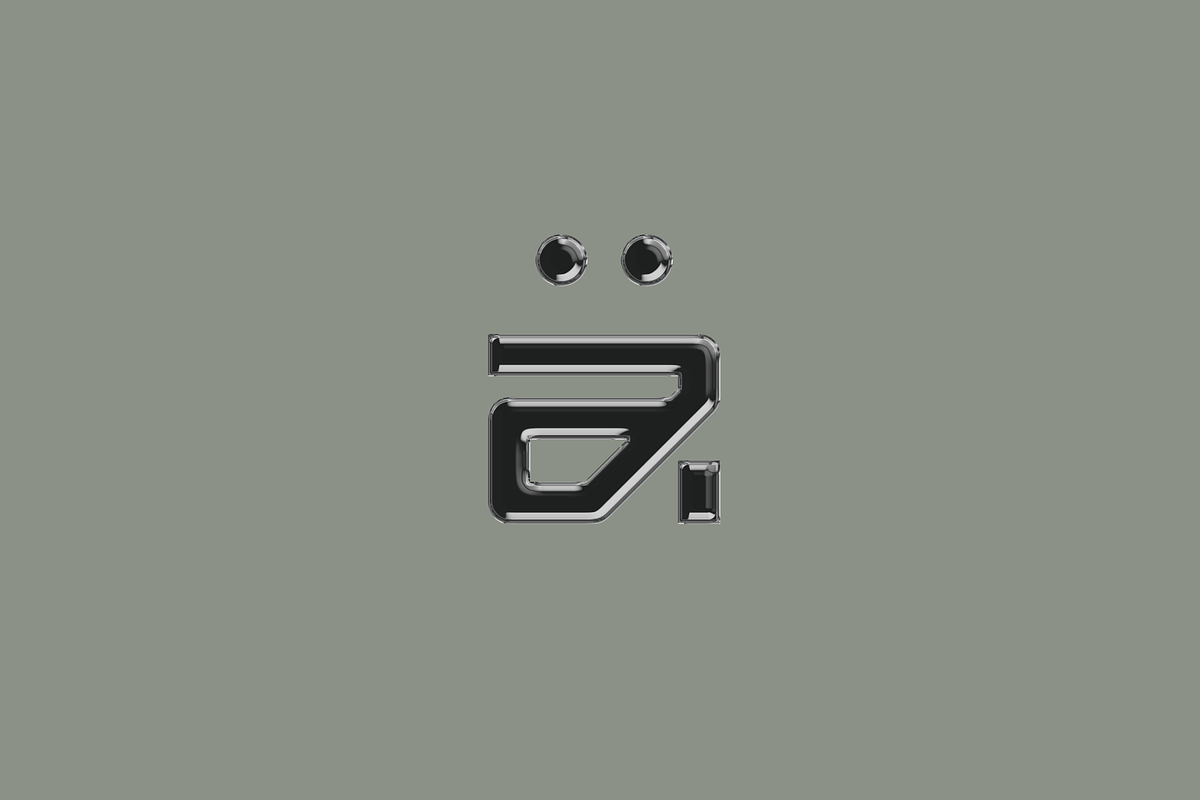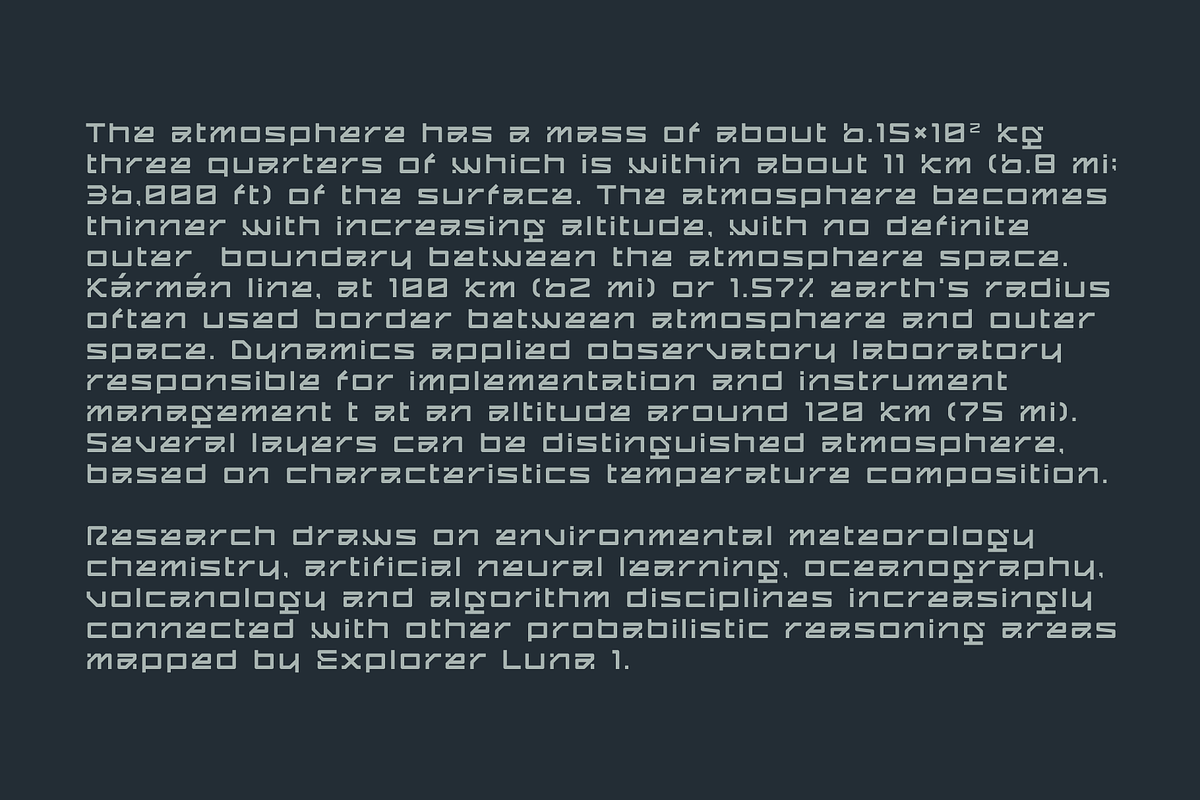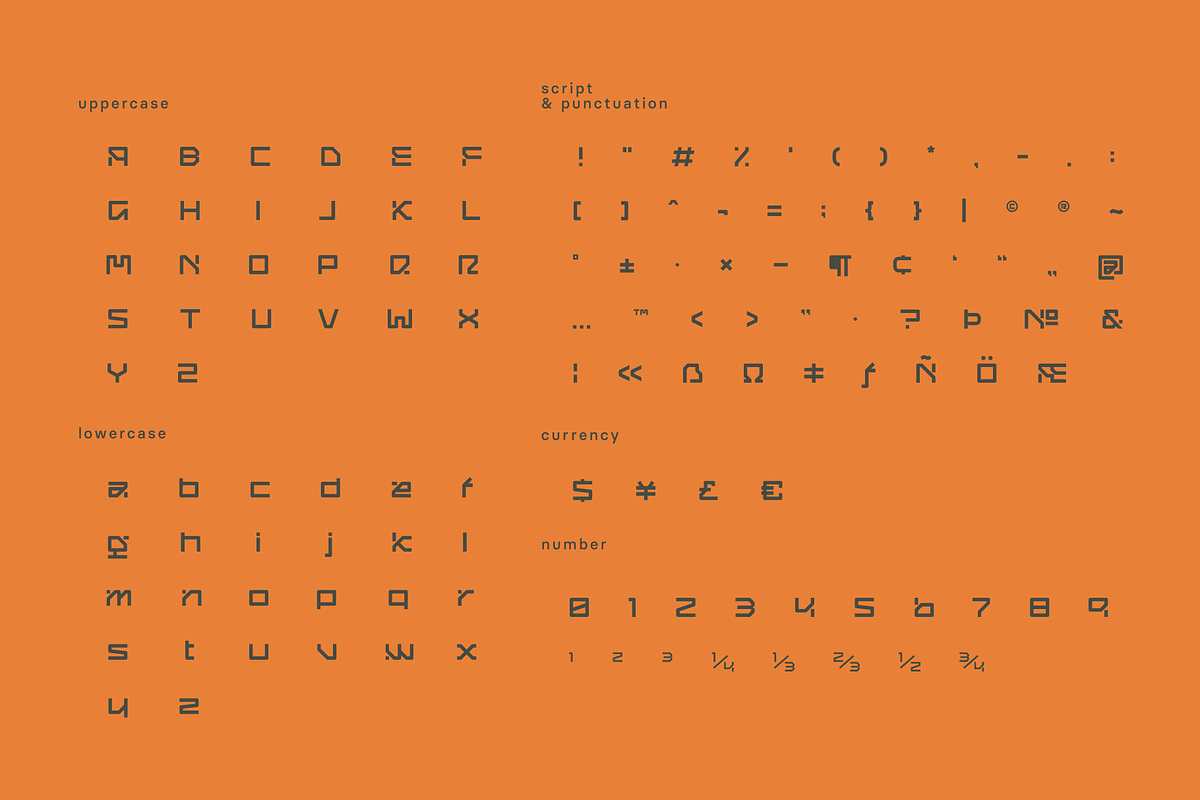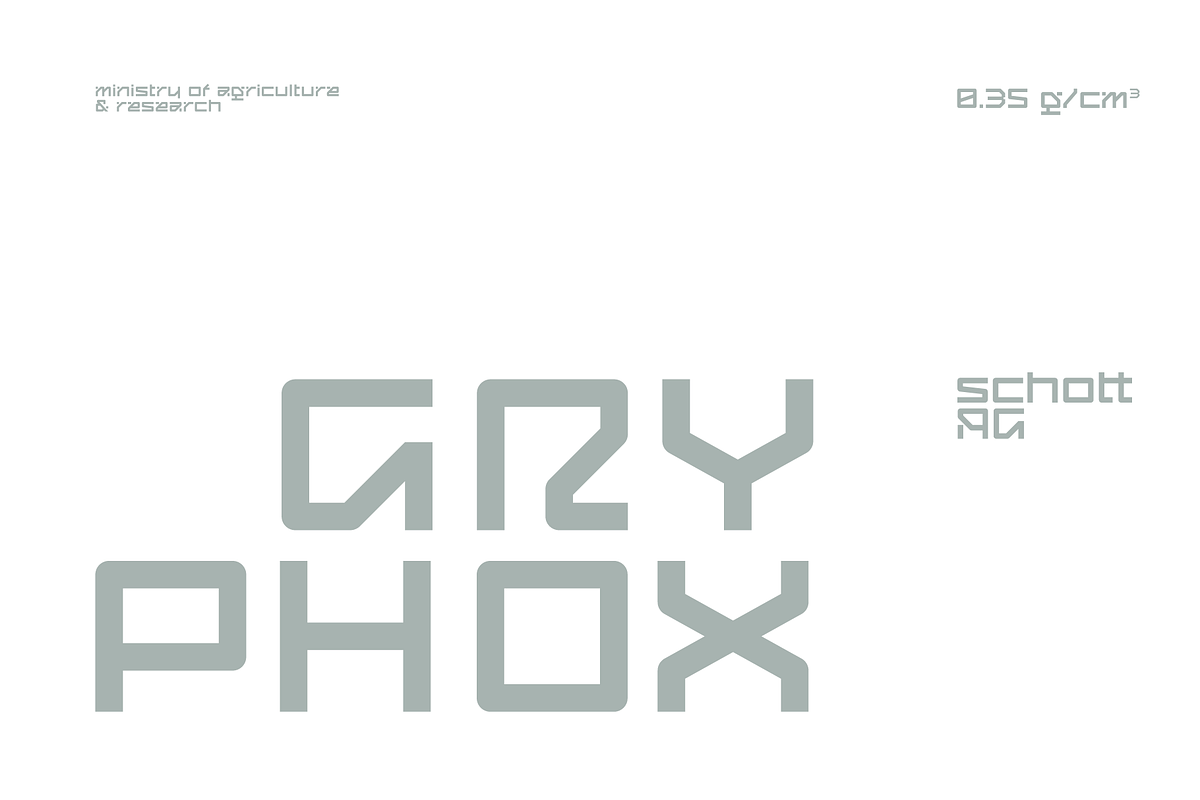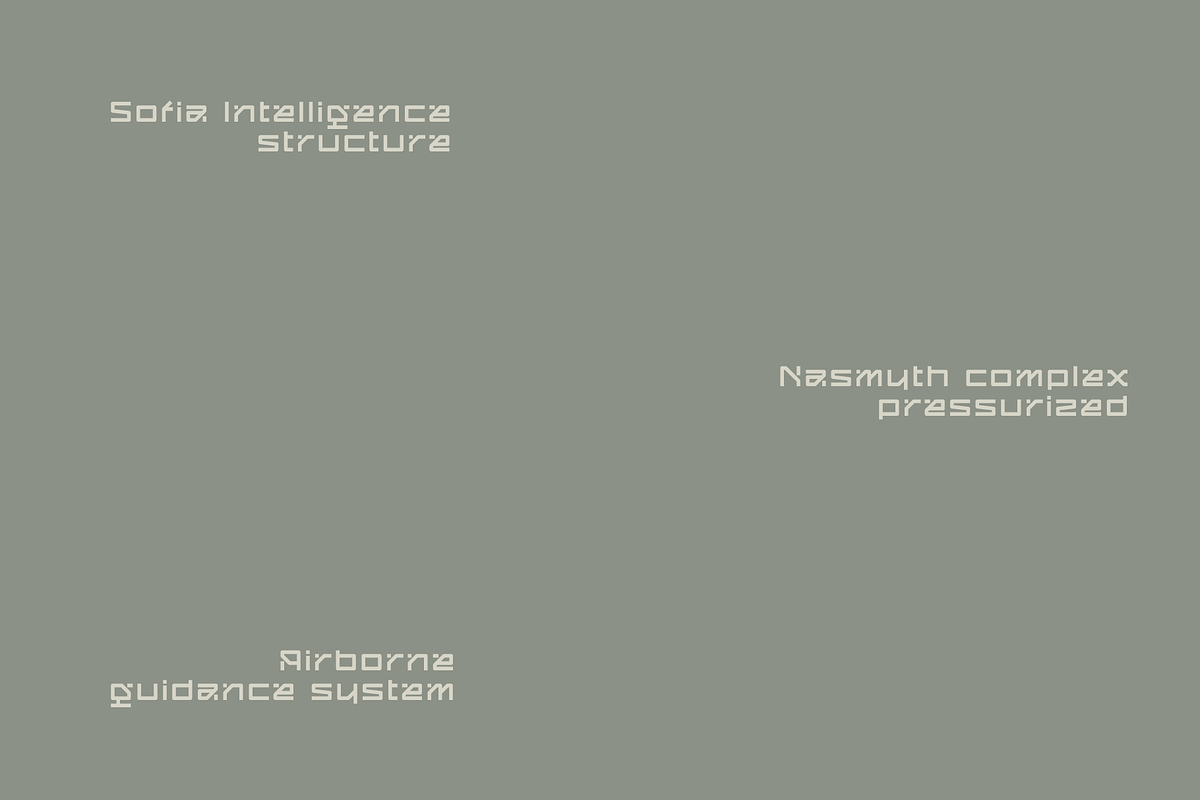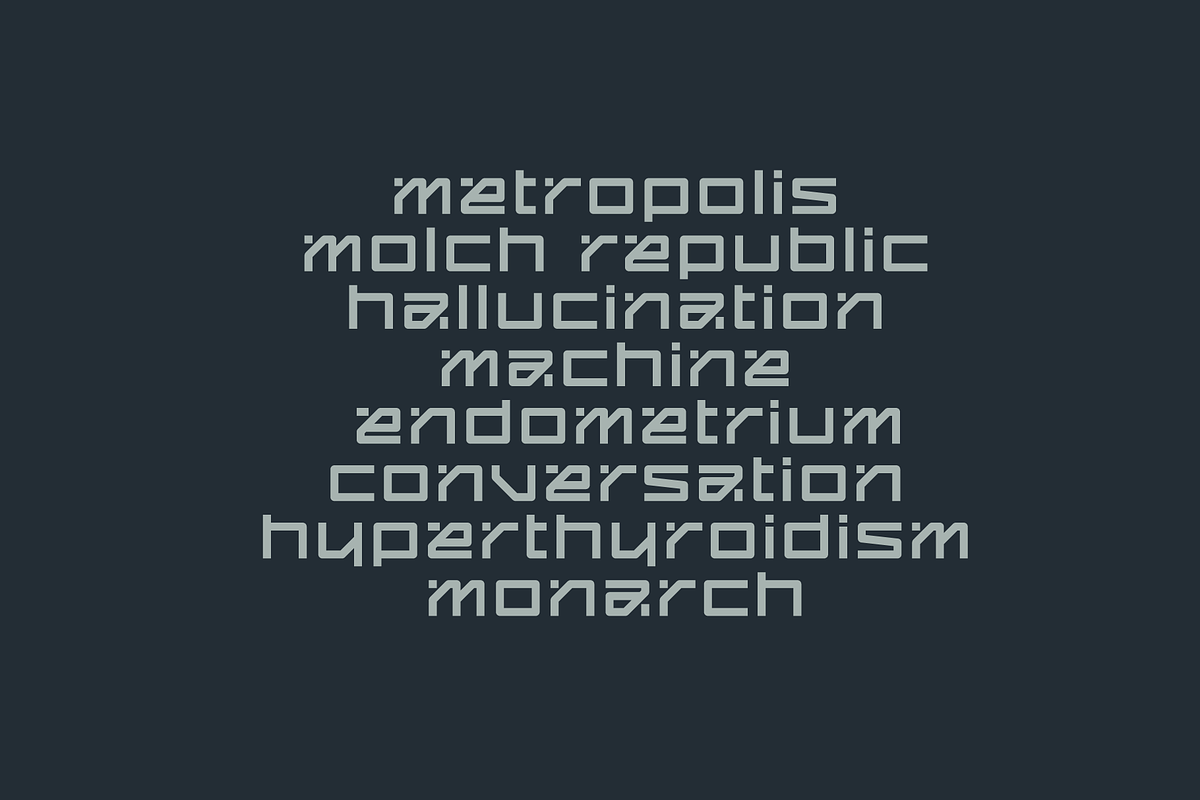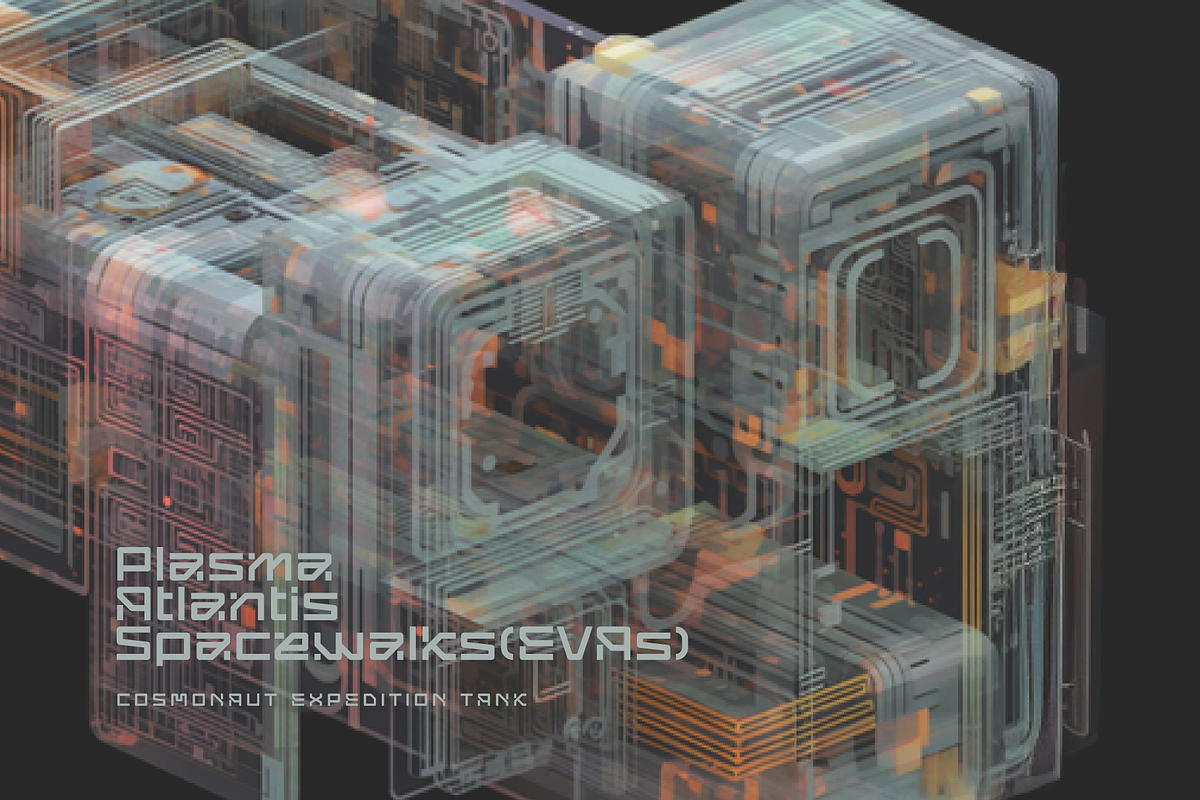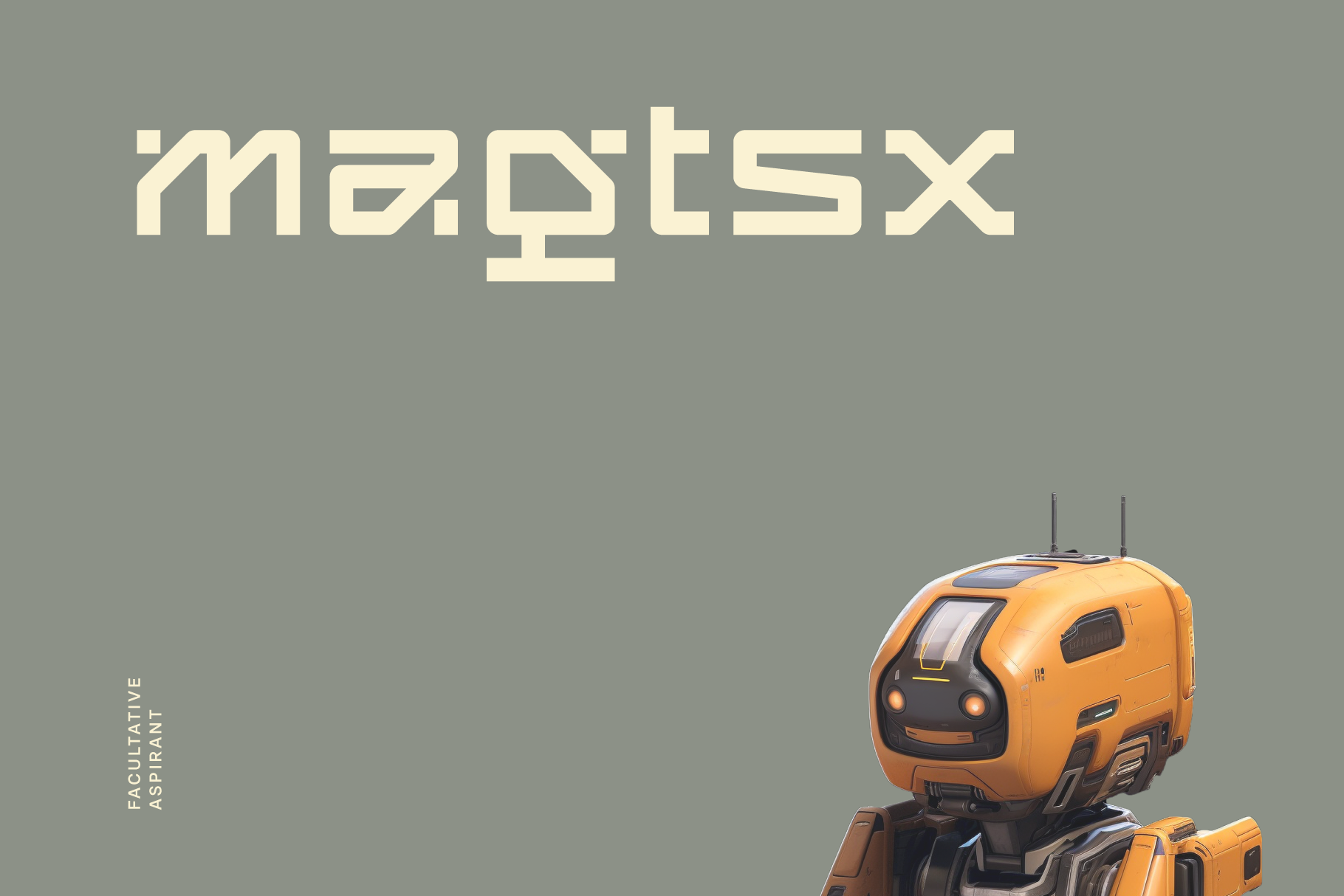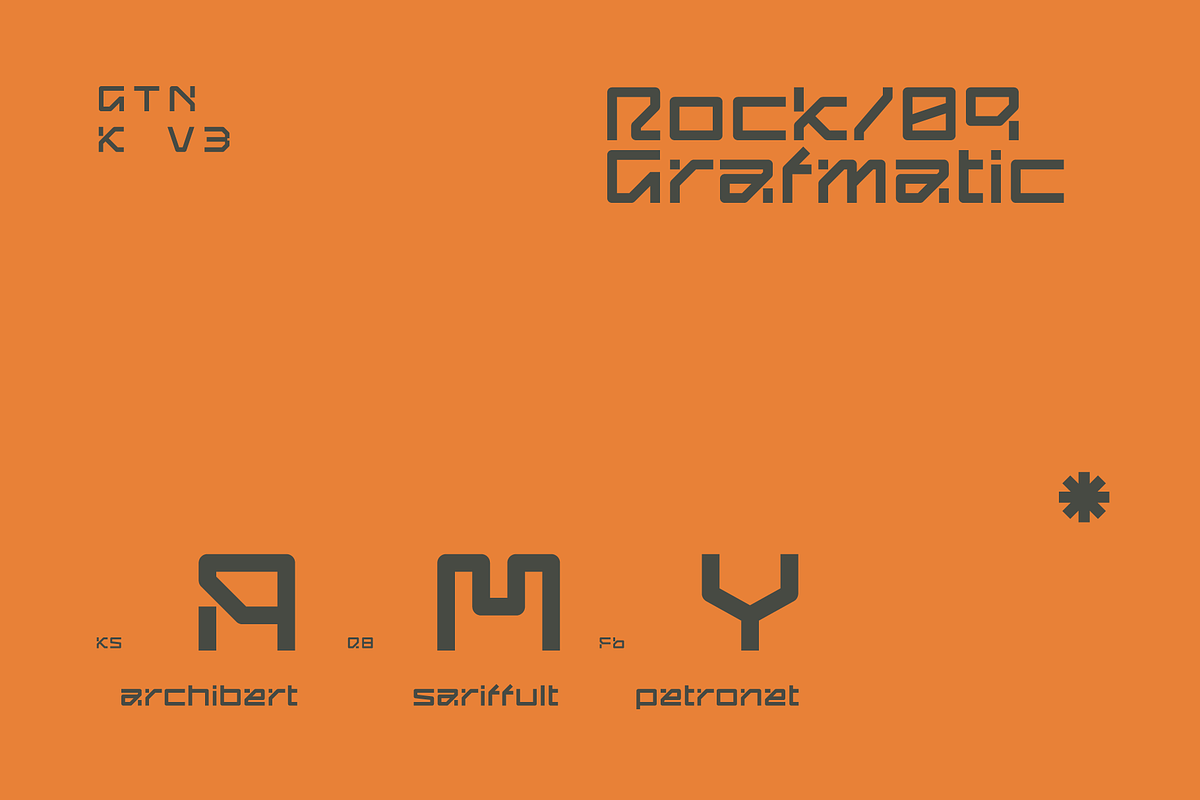
Magtsx Font
Magtsx is facultative aspirant mono lineal typeface apt for headline, editorial, branding, packaging, printed materials and typographic applications. 220+ glyphs including punctuation and numerical.